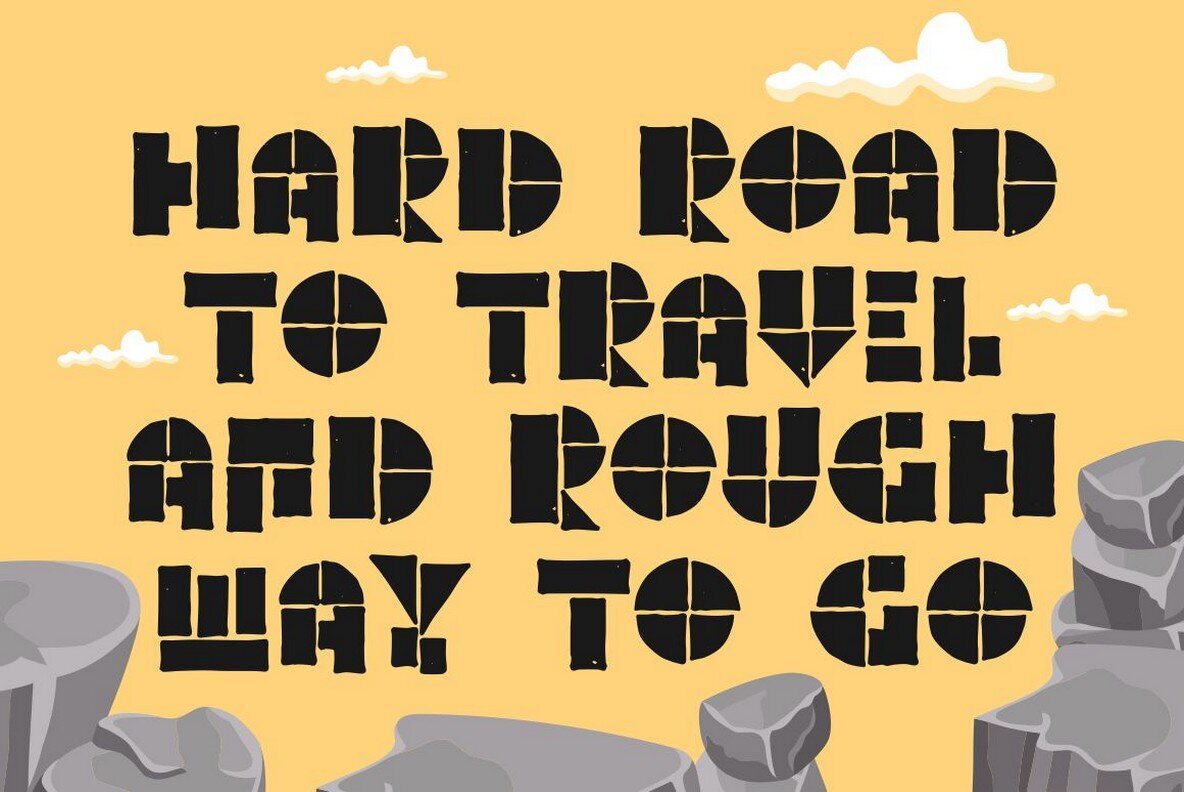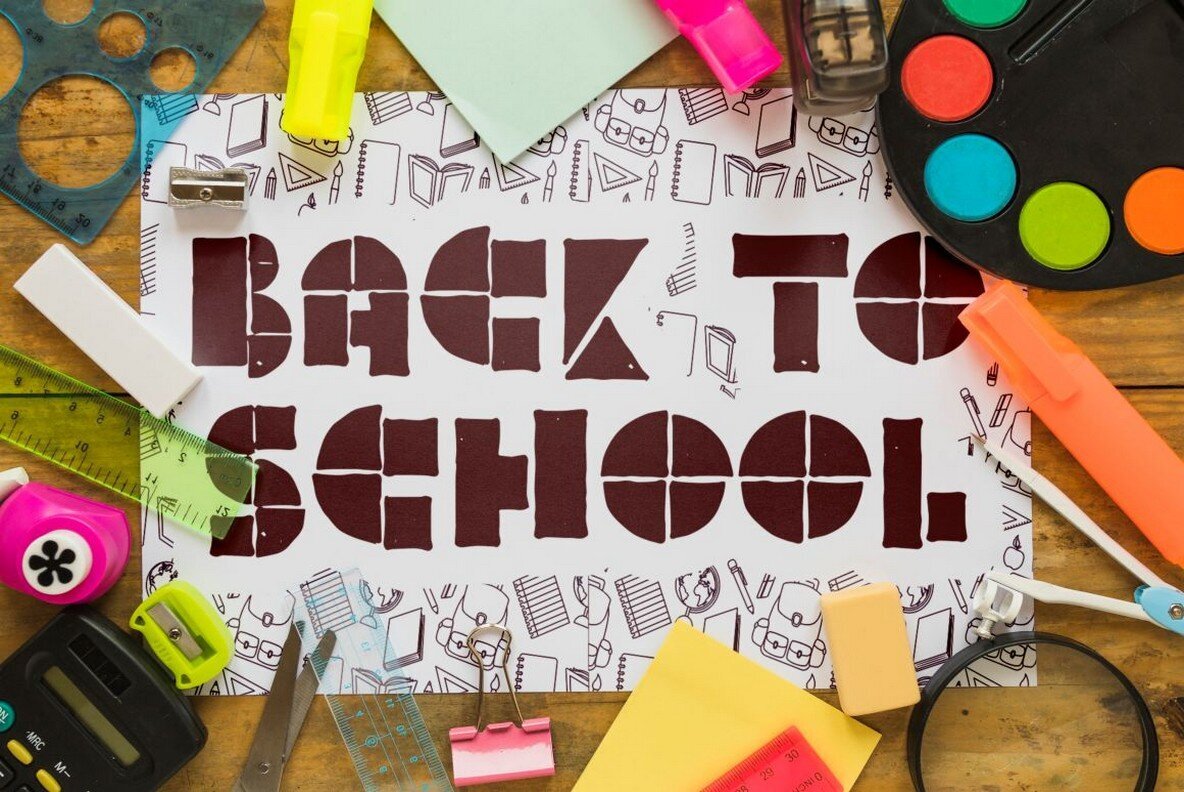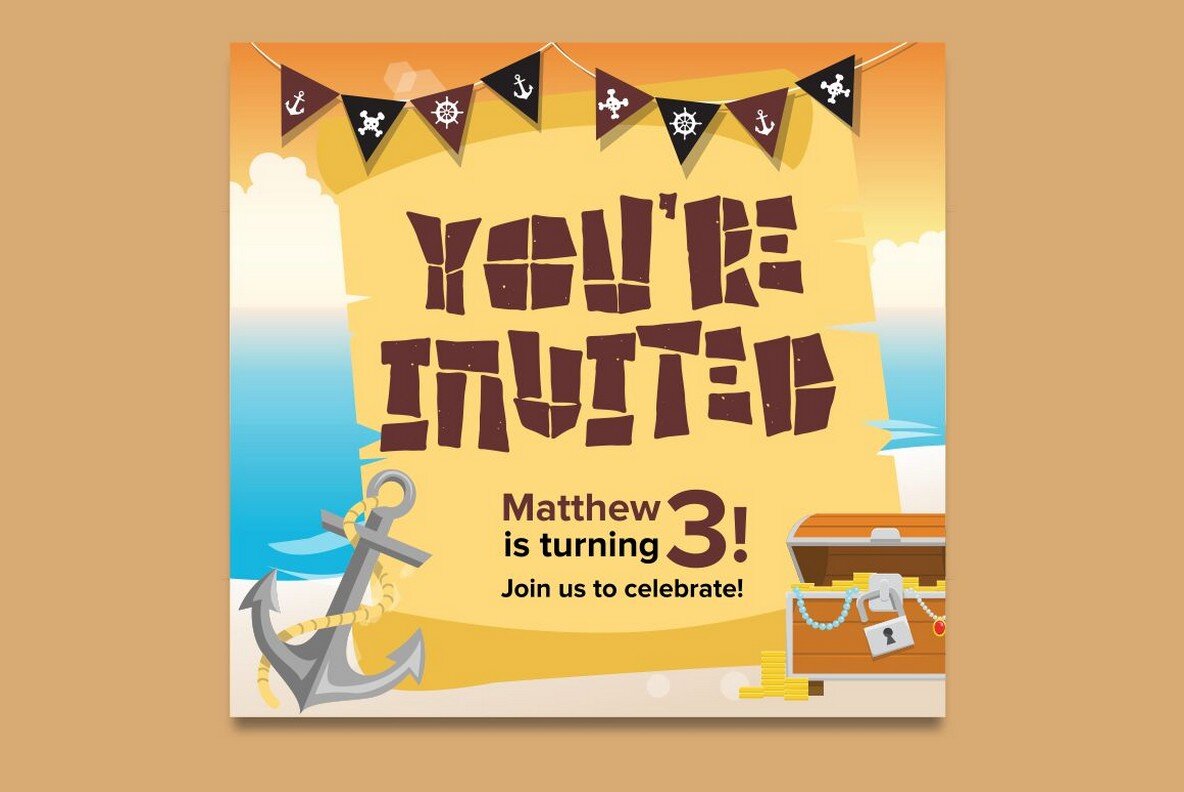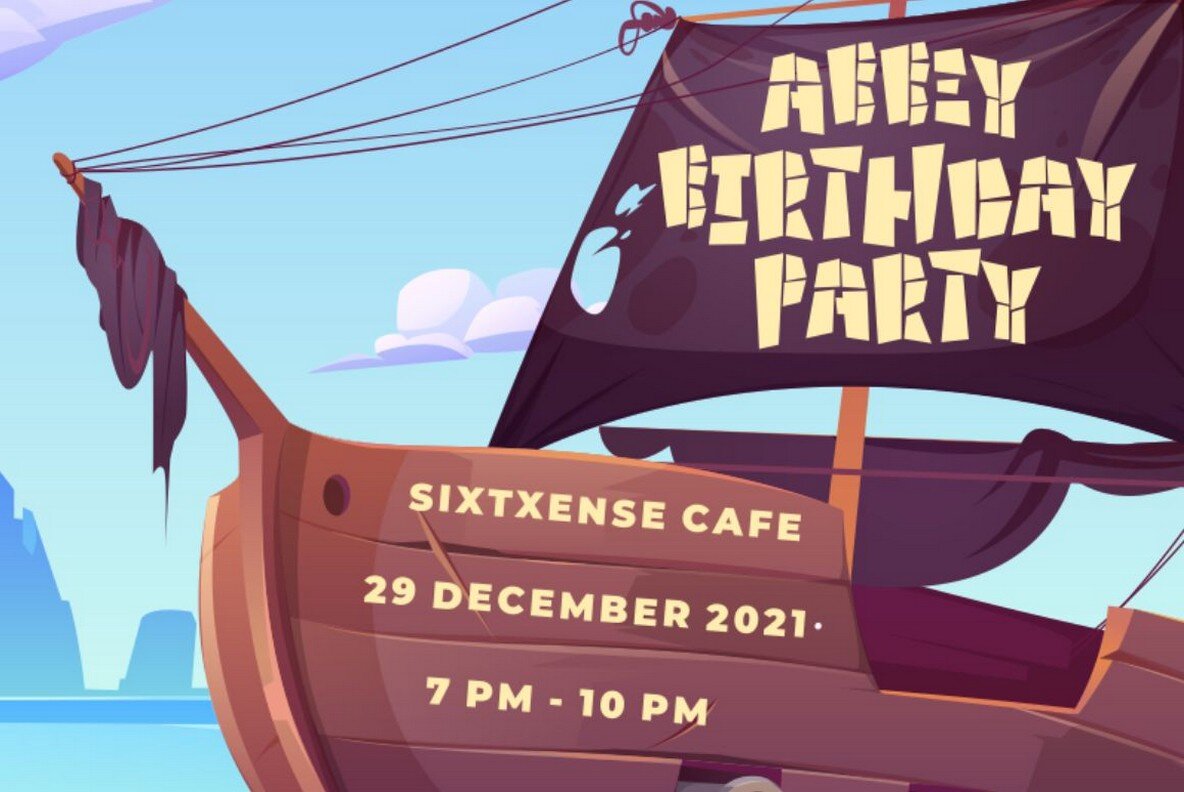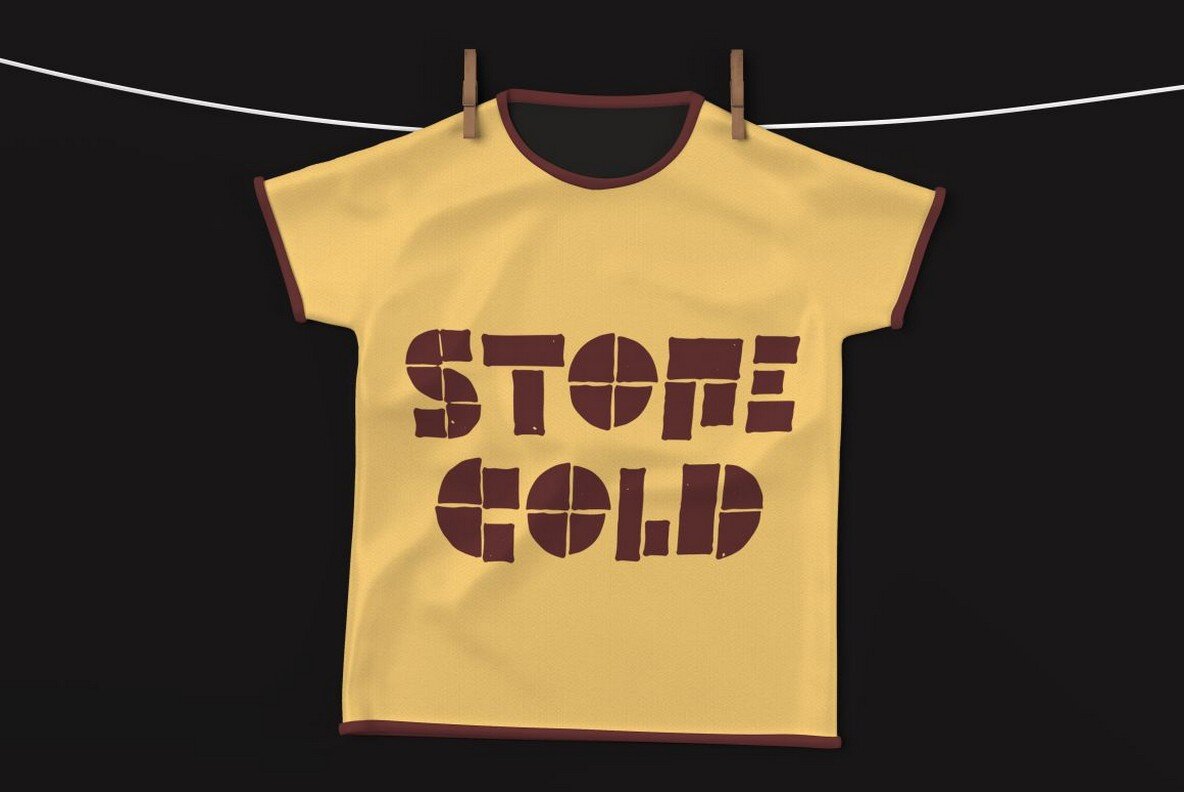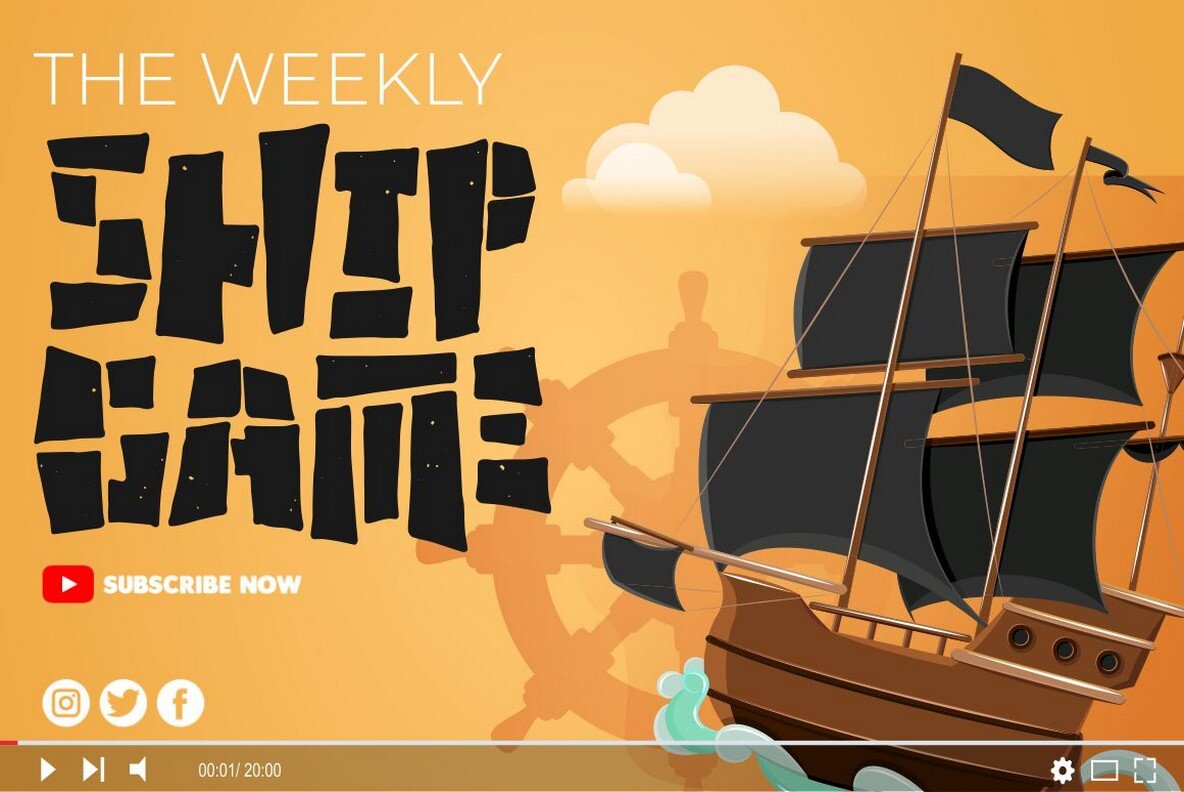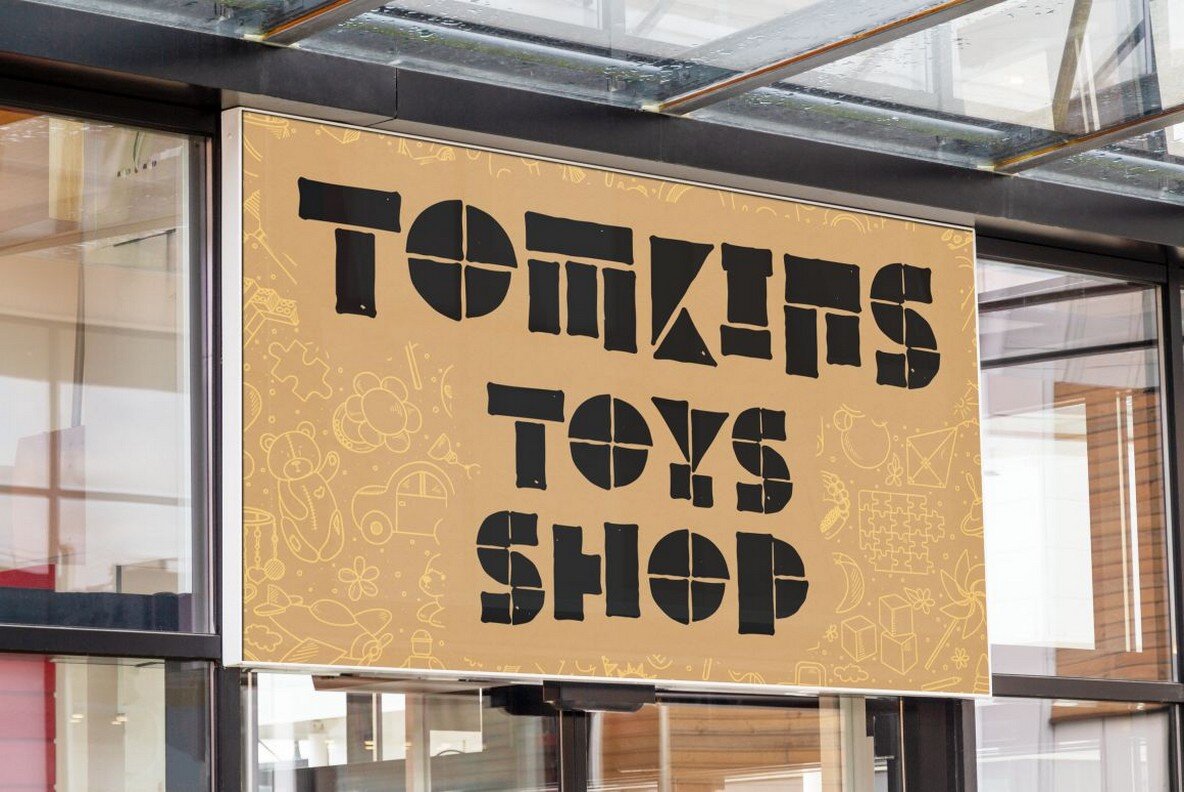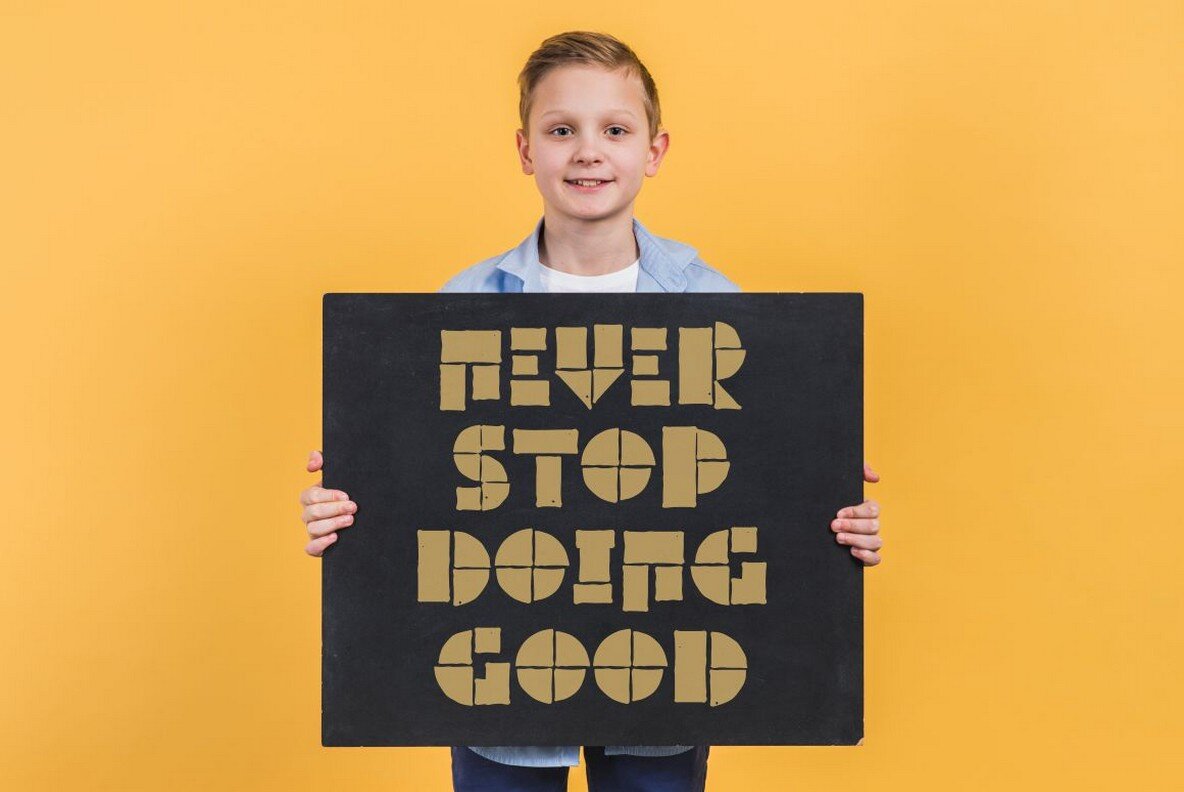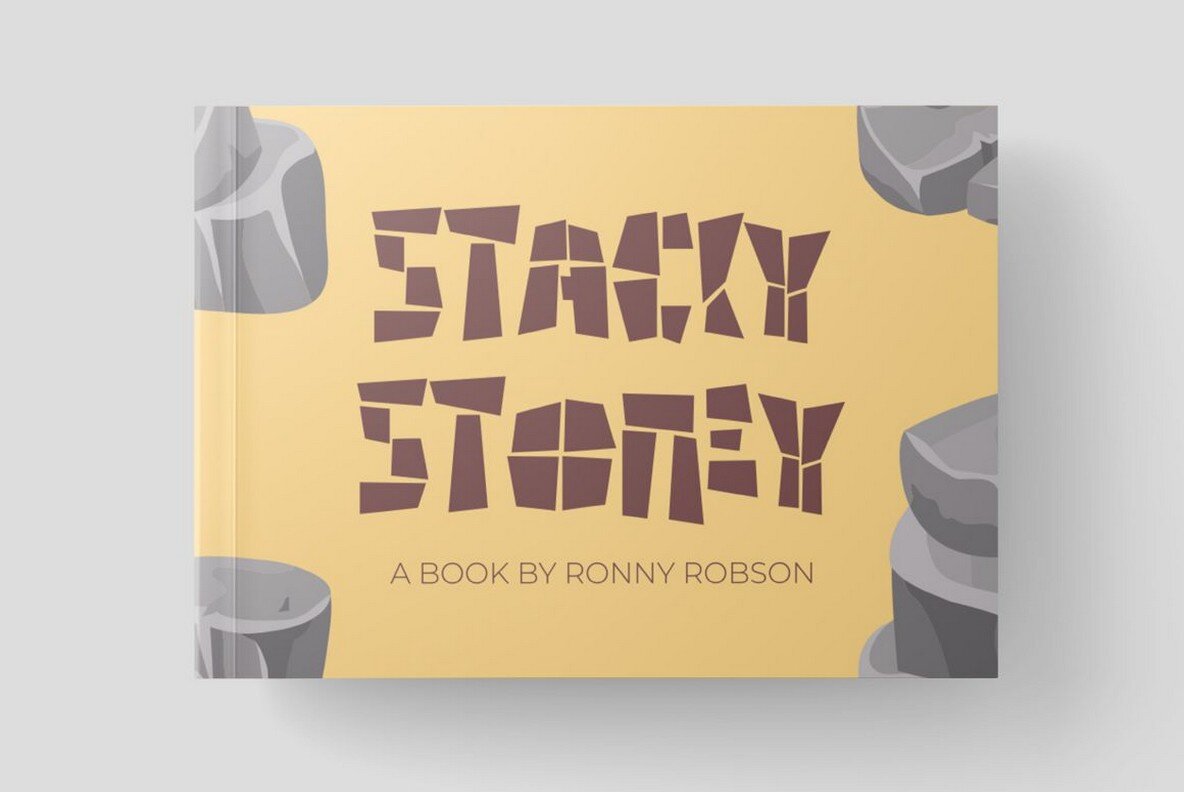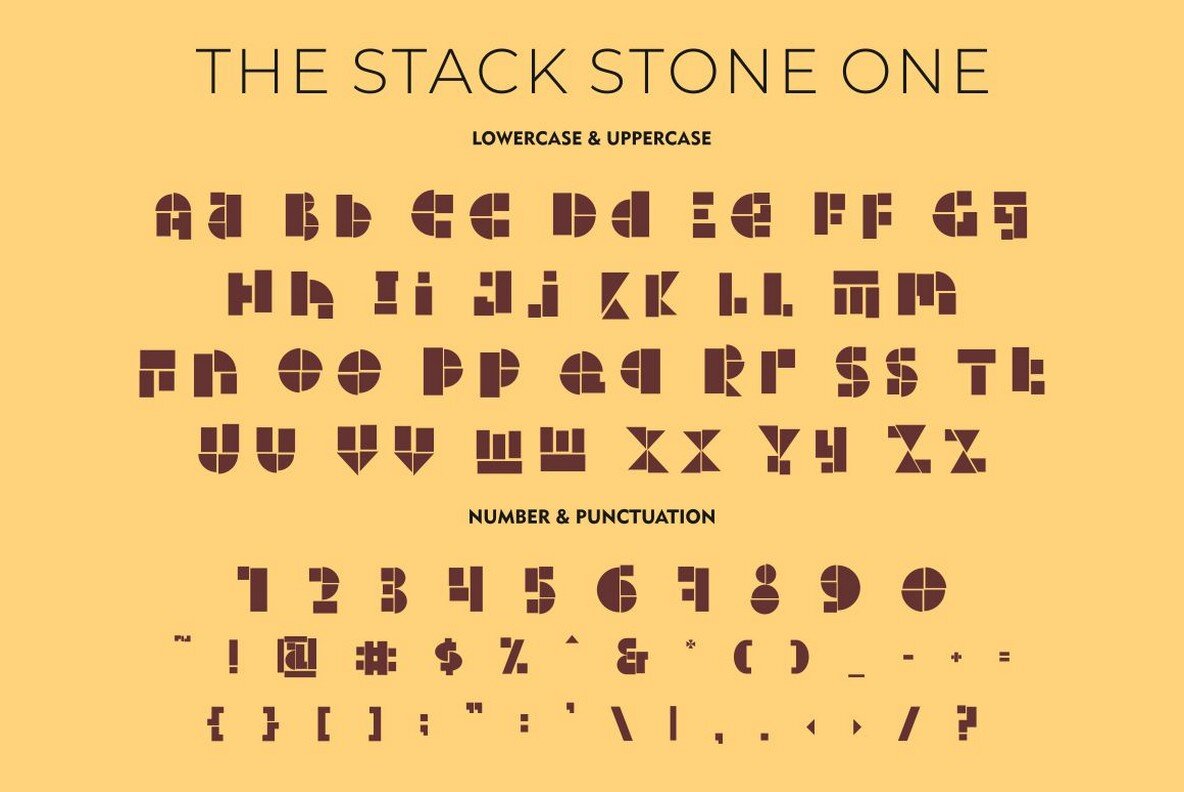
The Stack Stone Font
THE STACK STONE One
THE STACK STONE One Rough
THE STACK STONE Two
THE STACK STONE Two Rough
The Stack Stone is a bold display font that radiates a quirky, trendy street style. Ideal for any project that requires a mix of retro and modern aesthetics, this versatile stacking typeface boasts hand-drawn outlines and whimsical character placements. Its charm lies in its irregular, almost hand-lettered appearance that adds an urban touch to any design. Suitable for everything from poster designs to t-shirts and packaging, The Stack Stone offers an alternative look that enhances creative projects. Whether you're working on storybooks, illustrations, comic books, logos, or branding, its unique style caters to a wide array of creative needs.The Stack Stone: Bold Display Font with Urban Flair